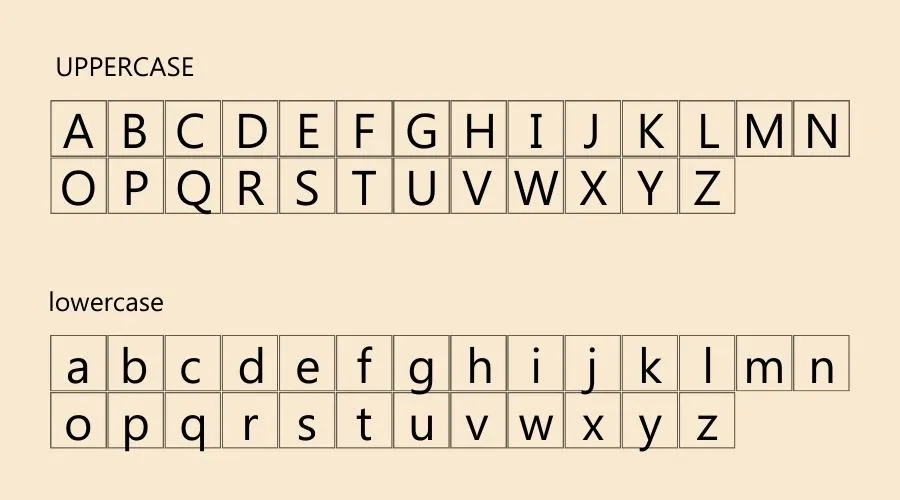
About Segoe UI Font
When typographic excellence matters most, Segoe UI Font delivers through its thoughtful blend of perfect spacing and reading comfort. Specially crafted for ceremonial invitations, it offers the consistency and technical excellence required for sophisticated design work. Every detail serves a purpose.
The character set showcases thoughtful details like width contrast alongside functional terminal characters. This proves especially valuable in brochures, where digital conversion directly influences results. Particular attention was paid to counter size and cultural relevance during development.